8 Best Display Fonts for Your Logo
When it comes to building a memorable brand, choosing the best display fonts for your logo is one of the most critical design decisions you will make. To help you stand out, we have handpicked 8 show-stopping typographic options that will instantly elevate your brand’s identity and make a lasting visual impact on your audience.
Logo Font: A Bold Statement for Display Fonts Enthusiasts
Make an unforgettable visual impact from the very first glance with Logo, a bold and chunky display typeface engineered to give your brand a powerful, modern voice. Striking the perfect balance between playful volume and sleek contemporary lines, this highly interesting option serves as an incredibly dynamic addition to your curated selection of Display Fonts.
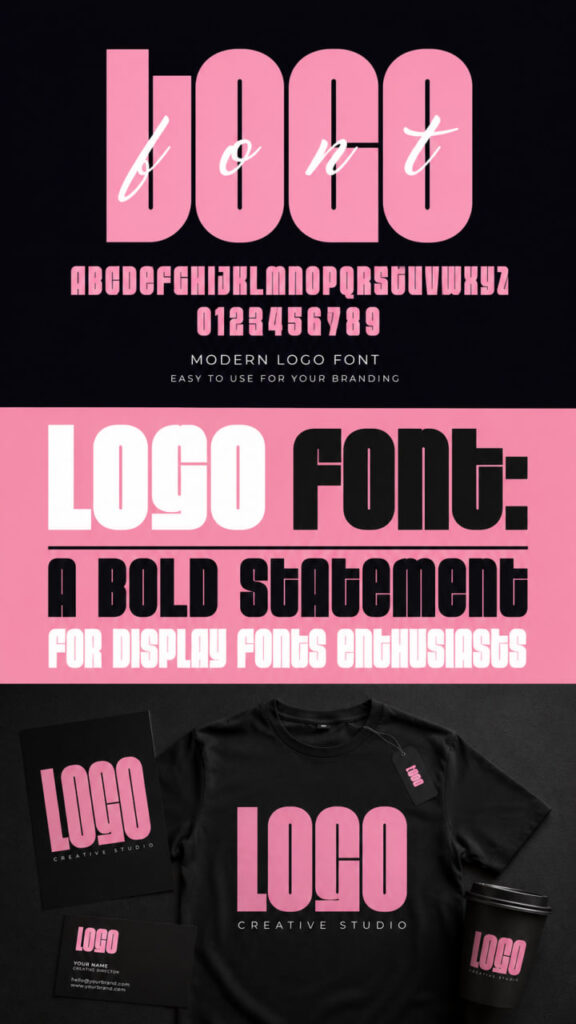
It is the absolute ultimate choice for designing eye-catching event posters, youthful product packaging, trendy apparel, and of course, a standout, professional corporate Logo that commands attention on any digital screen or physical surface. Bring this vibrant powerhouse into your creative toolkit today and watch each of your custom layouts instantly come alive with energetic personality!
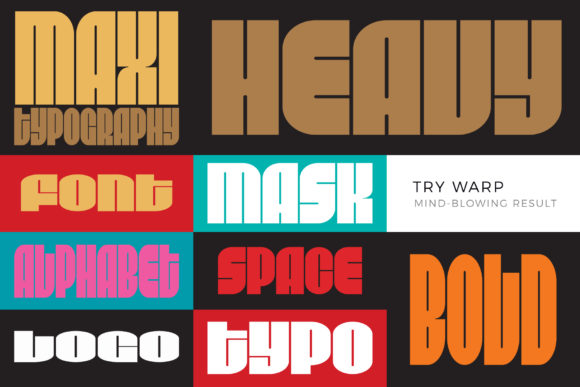
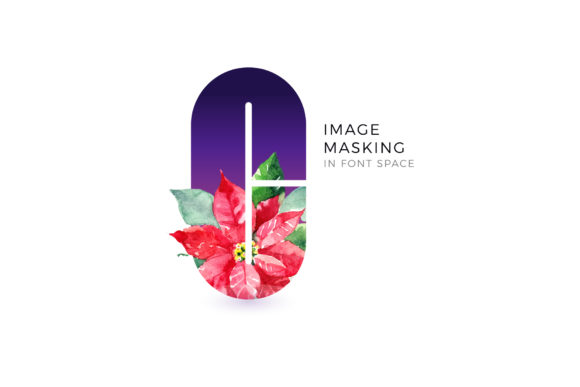
Fear Logo Font: A Tech-Forward Powerhouse for Display Fonts Collectors
Step directly into the frontier of digital-first branding with Fear Logo, a strikingly sharp and hyper-modern typeface built to define the future of high-tech design. Radiating a sense of mechanical intelligence and cybernetic precision, this commanding option serves as an incredibly polished addition to your curated selection of Display Fonts.
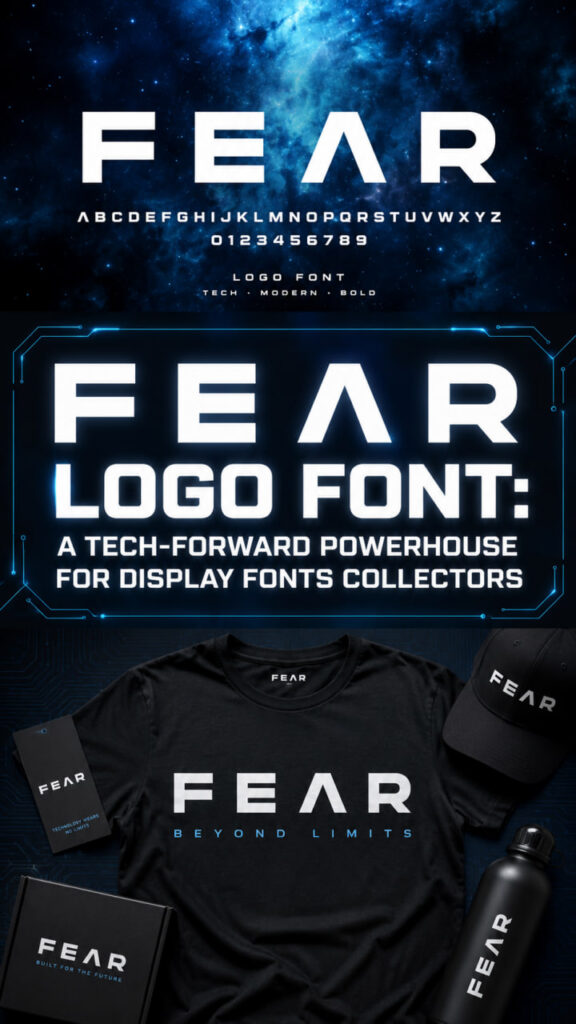
It is the absolute ideal choice for crafting visual identities rooted in artificial intelligence, robotics, sci-fi literature, and next-generation digital interfaces. Bring this cutting-edge powerhouse into your creative toolkit to design high-impact promotional campaigns, immersive gaming overlays, or a commanding corporate Logo that instantly speaks with sophisticated, futuristic authority on any screen!
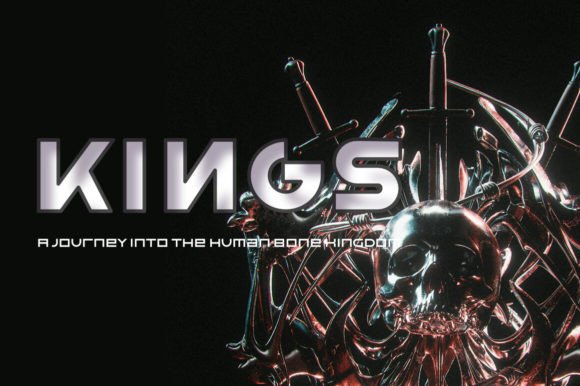
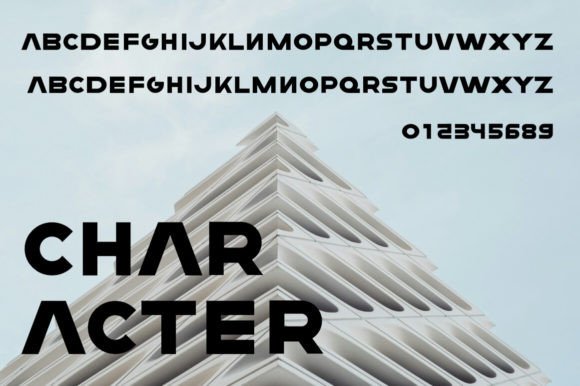
Just Logo Font: A Minimalist Marvel for Display Fonts Collectors
Strip away the unnecessary noise and welcome a new era of clean, geometric design with Just Logo, a sleek and hyper-modern typeface that masterfully blends futuristic elegance with minimalist precision. Characterized by its perfectly balanced bold lines and smooth, innovative curves, this striking option serves as an exceptionally polished addition to your library of Display Fonts.
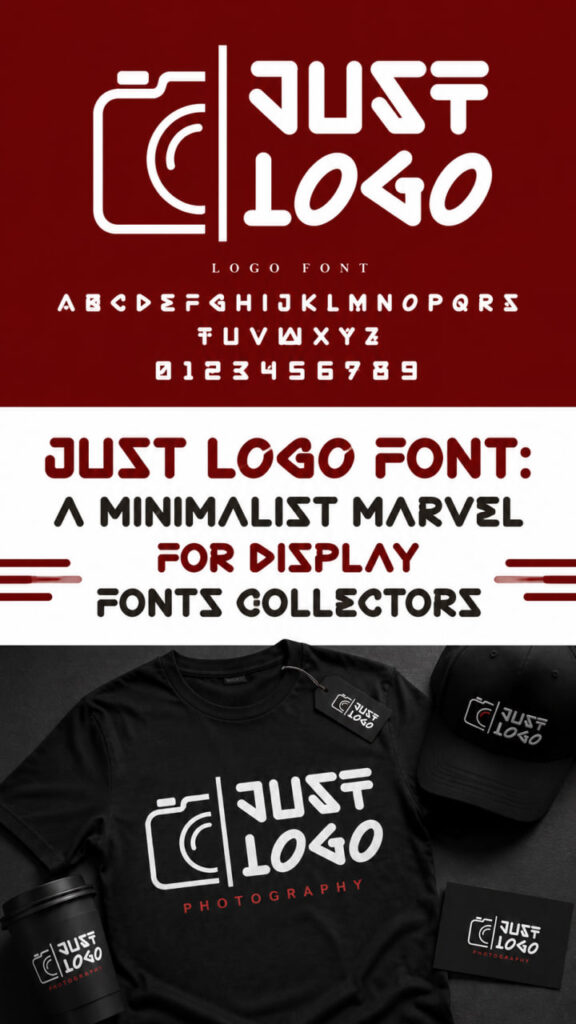
It is the absolute premier choice for crafting visual identities centered around cutting-edge technology, aerospace, sci-fi projects, and digital innovation. Bring this highly creative powerhouse into your workspace to instantly design high-impact branding kits, futuristic website headers, or a commanding corporate Logo that projects visionary intelligence on any screen!
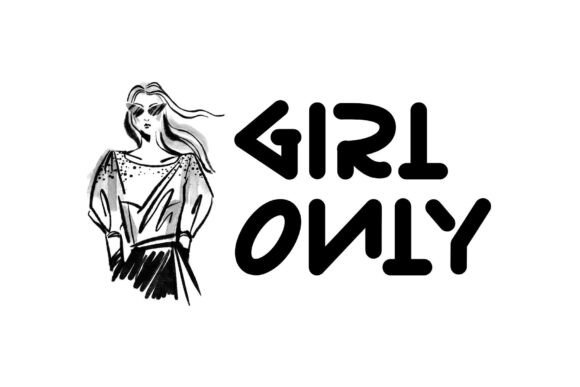
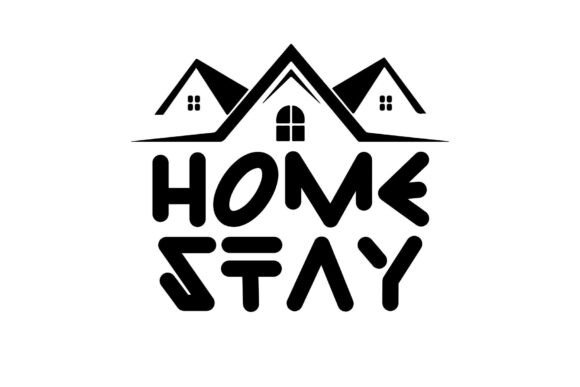
Veltcon Font: A Timeless Vintage Duo for Display Fonts Collectors
Set off on a nostalgic road trip down memory lane with Veltcon, a beautifully crafted vintage duo that masterfully pairs a bold, clean sans-serif with a smooth, flowing retro script. Drawing rich inspiration from classic Americana, old roadside motels, and vintage gas station signage, this warm and tactile powerhouse serves as a highly versatile addition to your curated library of Display Fonts.
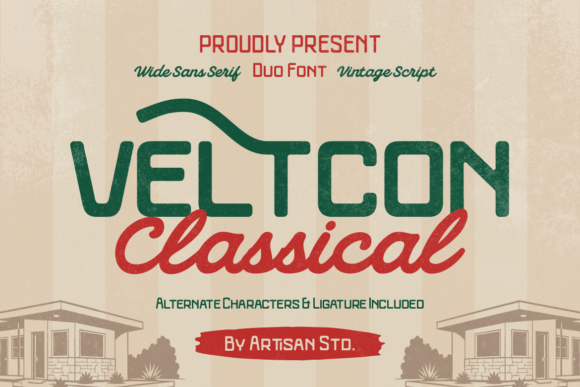
The structural sans-serif brings solid readability to prominent headers, while the elegant script offers an authentic, hand-painted feel that balances classic charm with retro character. Whether you are building a cozy cafe identity, nostalgic packaging, retro travel posters, or a timeless brand Logo that stands out with genuine vintage pride, Veltcon’s rich selection of ligatures and alternates ensures your custom layouts always look effortlessly polished, stylish, and full of classic personality.
Inkvera Font: A Textured Powerhouse for Display Fonts Collectors
Embrace the beautiful harmony of raw texture and refined elegance with Inkvera, a modern textured font duo that masterfully pairs a bold, handcrafted sans-serif with a gracefully flowing script. Designed with subtle rough details and organic strokes, this versatile powerhouse brings a unique handmade feel to every canvas, making it a highly creative addition to your curated library of Display Fonts.
The striking contrast between the bold uppercase style and the elegant script allows you to design eye-catching typography with absolute ease. Whether you are building a modern brand identity, a striking corporate Logo, gorgeous wedding invitations, stylish merchandise, or aesthetic packaging, Inkvera delivers warmth, personality, and a timeless appeal that stands out with genuine artistic flair.
Gloomy Arcade Font: A Dark Fantasy Dream for Display Fonts Collectors
Step into a mysterious realm where nostalgic neon meets dark, enchanted folklore with Gloomy Arcade, an incredibly unique typeface that masterfully blends the whimsical charm of retro arcade gaming with a dark, medieval fantasy twist. Offering a bold yet enigmatic personality, this striking option serves as a wonderfully mysterious addition to your curated library of Display Fonts.